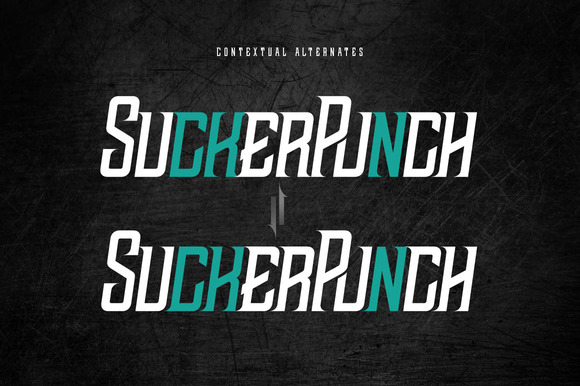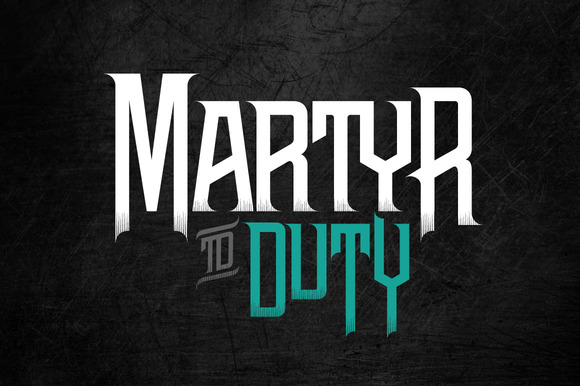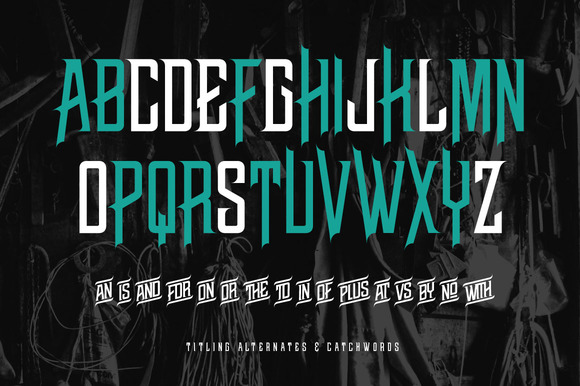
NWB Marvis Display Pro Font
NWB Marvis Display Pro Font is designed by Nowheresburg, a professional design, the font currently being sold for $ 12 on creativemarket. NWB Marvis Display Pro is a vintage display typeface with a contemporary feel. Late 19th century aesthetics inspired its’ design, but it is equally suitable for modern design applications. Featuring over 290 ligatures, 1357 total glyphs, context sensitive alternates, and 35+ catchwords , it allows for deep typesetting customization options for poster headlines, movie titles, product labels, brand identities, and anything else you can imagine.